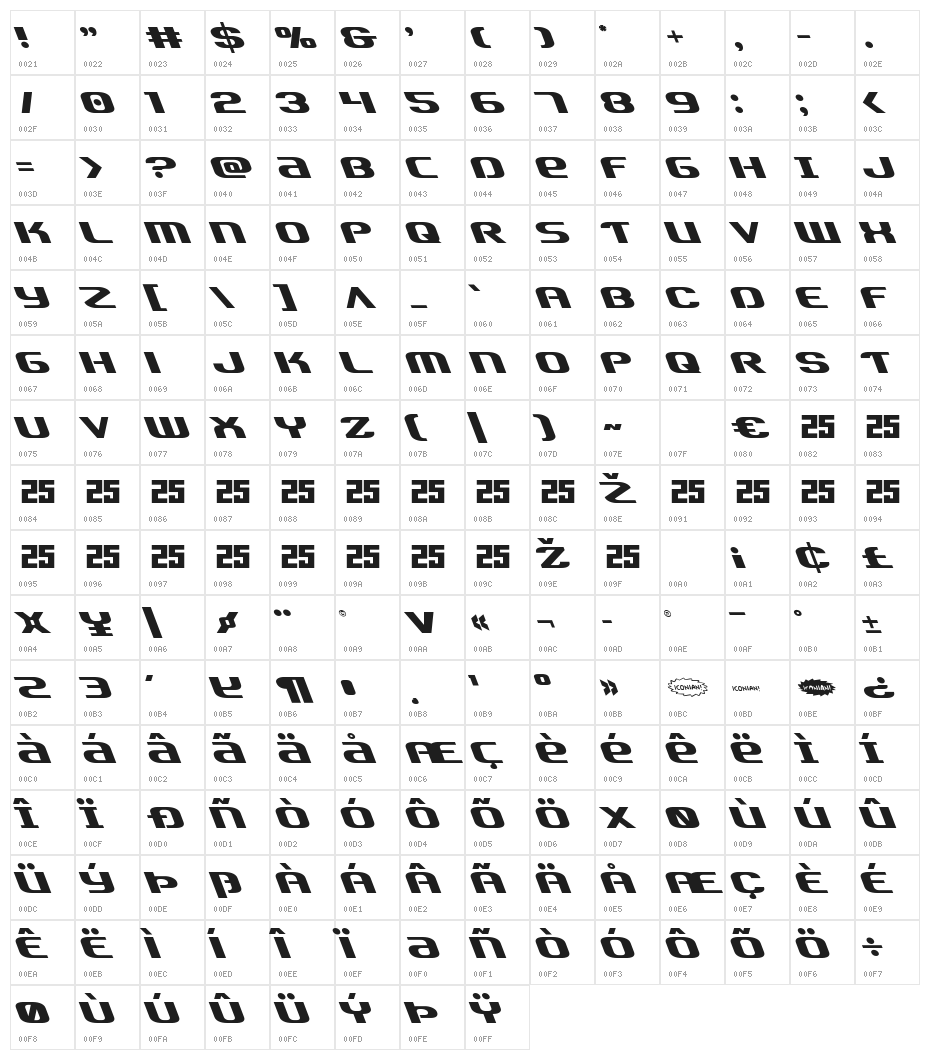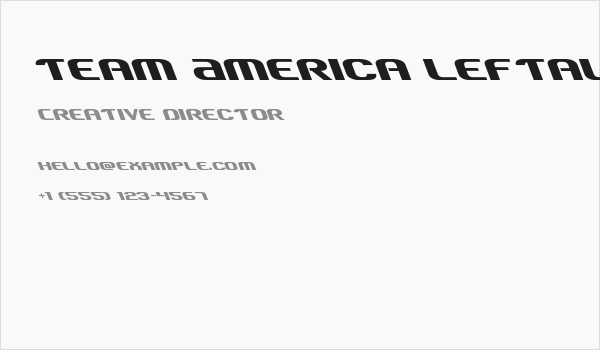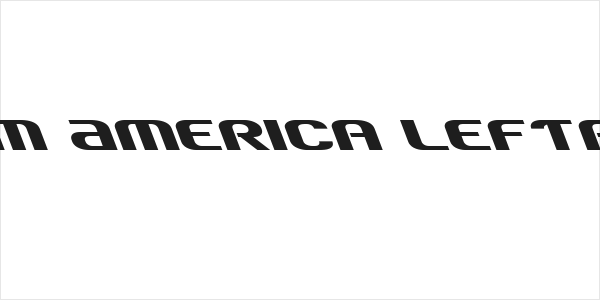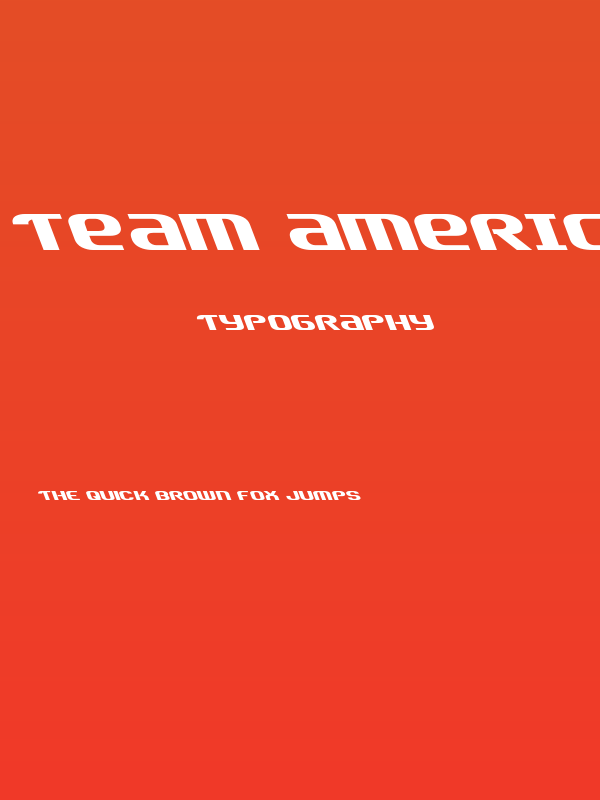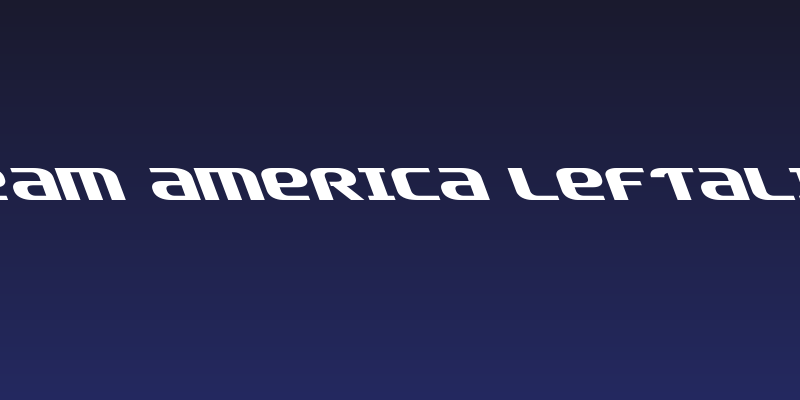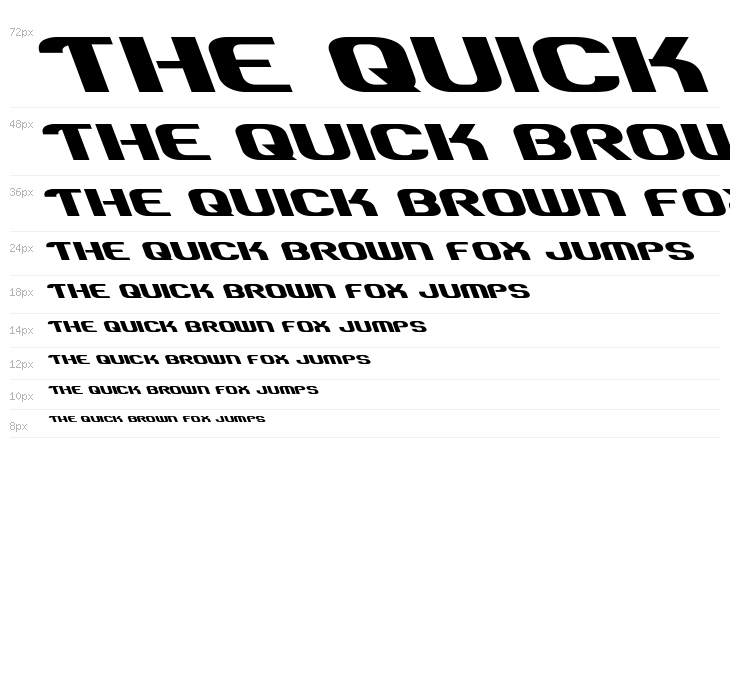
Team America Leftalic Font
Team America Leftalic Description
This font features a bold and dynamic style with a distinct leftward slant, giving it a sense of motion and energy. The characters are wide and have a strong presence, making them highly legible and impactful. The strokes are thick and consistent, providing a uniform appearance across all characters. The design incorporates sharp angles and clean lines, contributing to a modern and futuristic aesthetic. The numbers and special characters maintain the same boldness and style, ensuring cohesion throughout the typeface. This font is ideal for projects that require a strong and assertive visual impact.